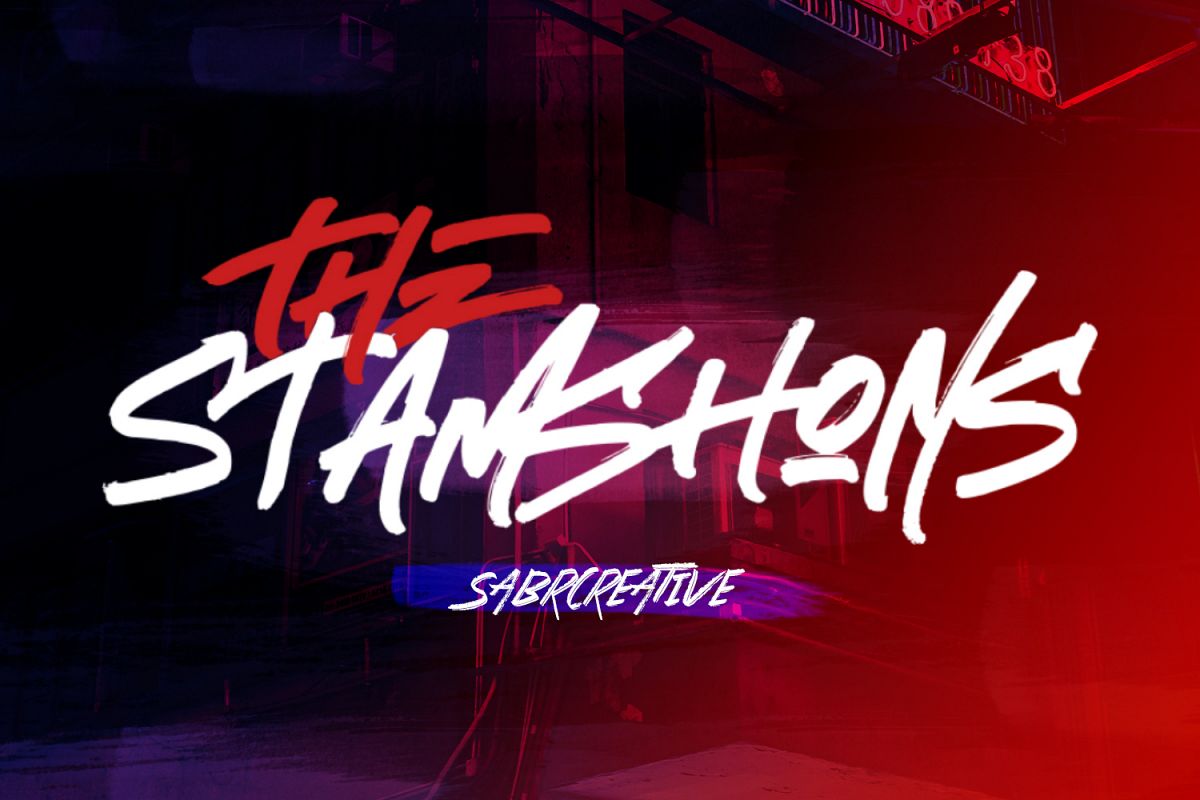
The Stamshons
Introducing The Stamshons brush font with a very strong,
bold and natural style. It uses a brush with direct strokes that produces a
natural style.
The Stamshons are ideal for logos, clothing, T-shirts,
Hoodies, quotes, product packaging, or anything that requires a strong design.